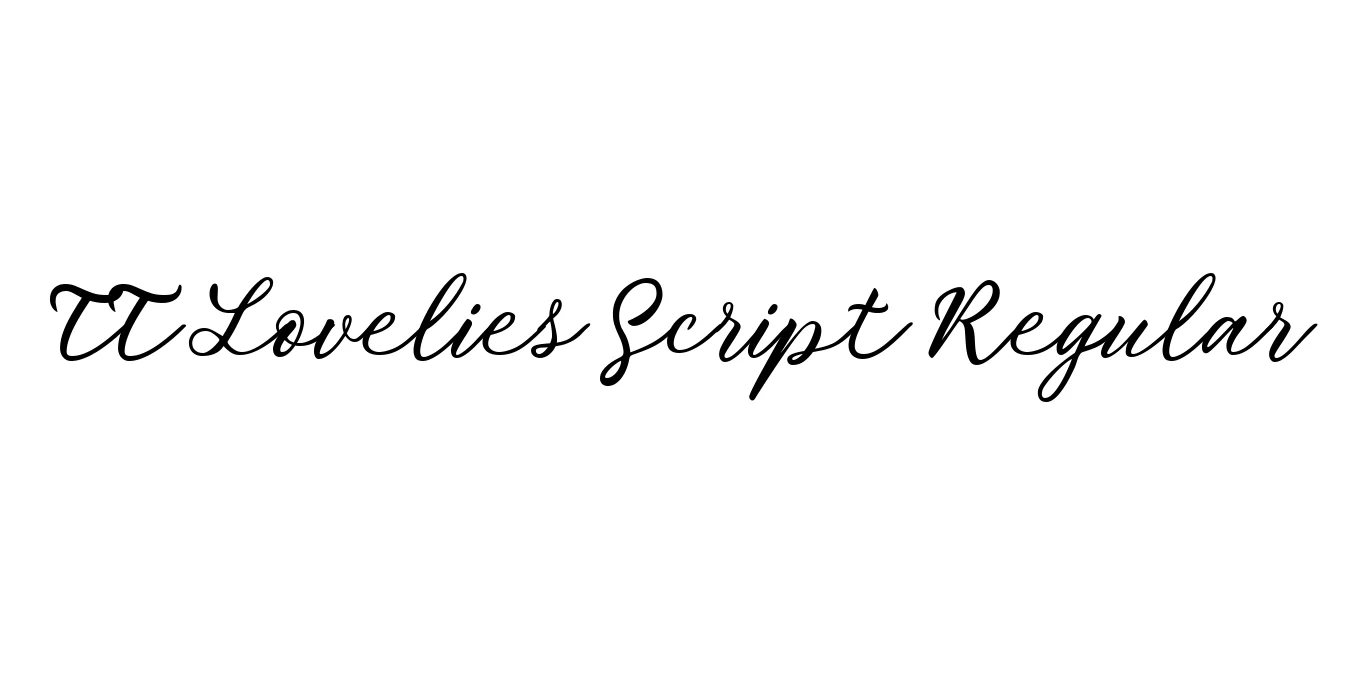
TT Lovelies Script Regular
Designed by TypeType (Julia Gonina)
TT Lovelies Script is a contemporary script typeface developed by the TypeType foundry. It is a high-quality, elegant calligraphy font that features a unique seamless connection between letters, which was achieved through rigorous OpenType programming. The design aims to mimic real handwriting with a focus on fluidity and a modern aesthetic, ensuring that each letter flows naturally into the next without visible breaks.
The font contains over 1100 glyphs, including a wide range of ligatures and decorative elements that allow for high levels of customization. This makes it highly versatile for various high-end branding projects. It is part of the larger TypeType library known for its technical precision and high-end design standards, making it a favorite for graphic designers looking for a sophisticated, yet approachable, cursive style that works well in both digital and print media.
TT Lovelies Script Regular Best Uses
Perfect for romantic and formal event cards.
Ideal for luxury brands and boutique identities.
Great for aesthetic quotes and lifestyle blog graphics.
Adds a premium and personalized feel to cosmetics or luxury goods.